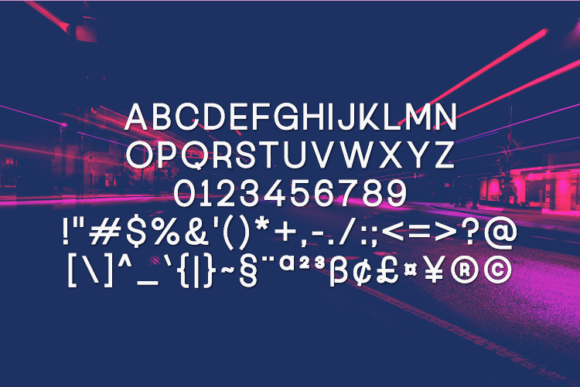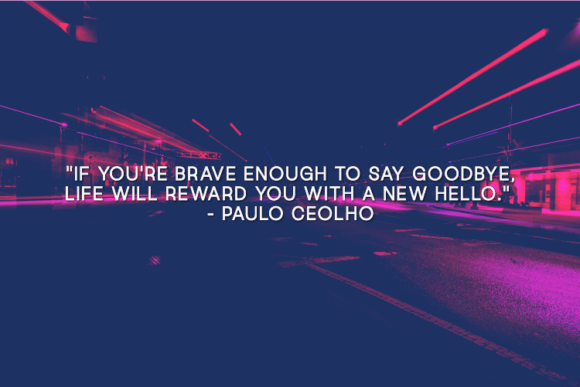
Introduction to Musthave Font
Have you ever found yourself staring at a blank page, trying to bring your creative vision to life? The blank slate can be intimidating, but with the right design tools, anything is possible. For designers, having access to high-quality fonts is essential to creating stunning visuals that capture attention. This is where the Musthave Font comes in – a game-changing sans serif font that elevates every project you work on.
Whether you’re a seasoned pro or just starting out, the Musthave Font is an invaluable resource for any creative project. With its transparent background and sleek design, it’s perfect for displays, headers, invitations, and so much more. The best part? It’s available for free download, making it an accessible design resource for designers of all levels.
Key Features of Musthave Font
- High-Quality Design: Musthave Font is designed to provide a unique and creative touch to any project, making it a valuable design resource.
- Transparent Background: Musthave Font features a transparent background, making it easy to integrate into any creative project, whether digital or print.
- Unique Characteristics: Musthave Font boasts a distinctive and modern design, setting it apart from other fonts in the market.
Honest Review: Musthave Font
As a designer, I’m always on the lookout for high-quality design resources to elevate my creative projects. The Musthave Font caught my eye with its sleek and modern aesthetic, making it a great addition to my design toolkit.
Here are some aspects that work well: ✨
- Customizable opacity options for a seamless transparent background integration
- Excellent legibility and clear typography
- High-quality design that’s suitable for a variety of creative projects
However, there are some limitations to consider: ⚠️
- Limited font pairing options, which might require some trial and error
Overall, I’m impressed with the Musthave Font’s versatility and high-quality design. While it may have some limitations, it’s a solid addition to any designer’s toolkit. With a bit of experimentation, you can unlock its full potential and create stunning designs.
Tips for Getting the Most Out of Musthave Font
For best results, use the Musthave Font with a transparent background to give your design a professional look. You can also experiment with different font sizes and styles to create a unique design resource.
Musthave Font is perfect for creative projects such as logos, brochures, and social media graphics. You can also use it in presentations and documents to add a touch of elegance and sophistication.
Can I use the Musthave Font with a transparent background?
Yes, the Musthave Font supports transparent backgrounds, making it perfect for designs that require a high level of customization and creativity. To use the font with a transparent background, simply apply a transparent fill or layer style to the text in your design software.